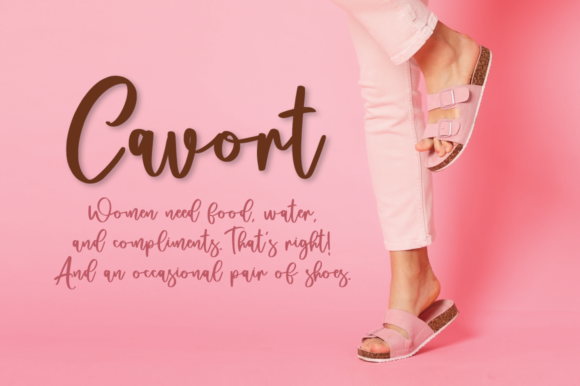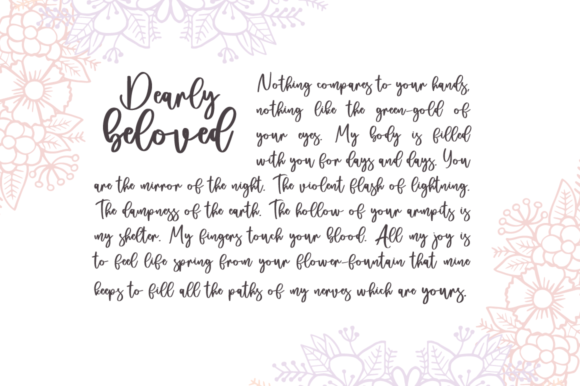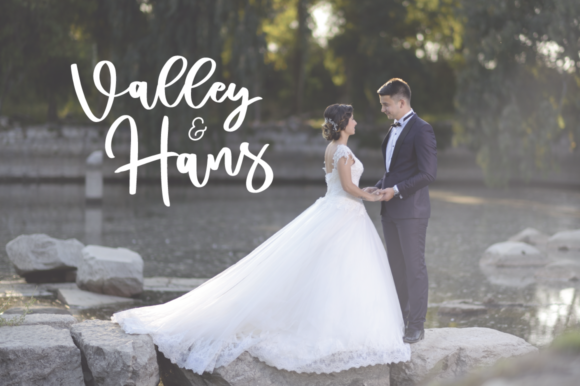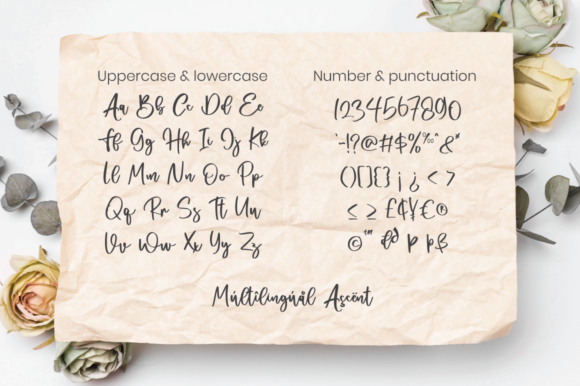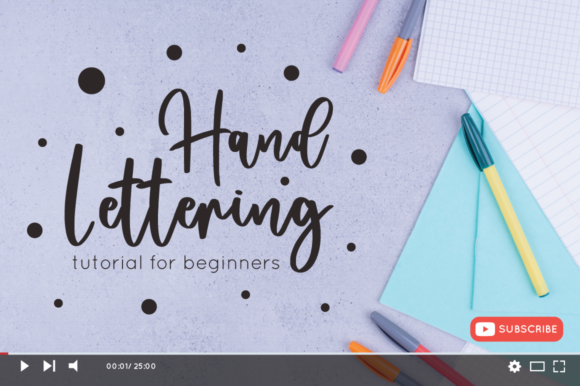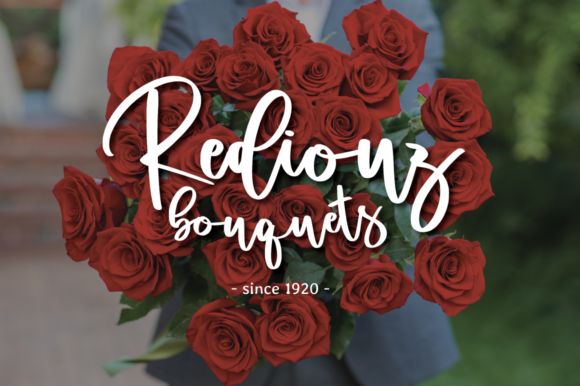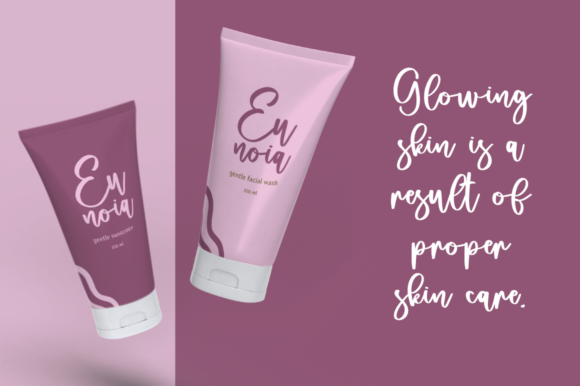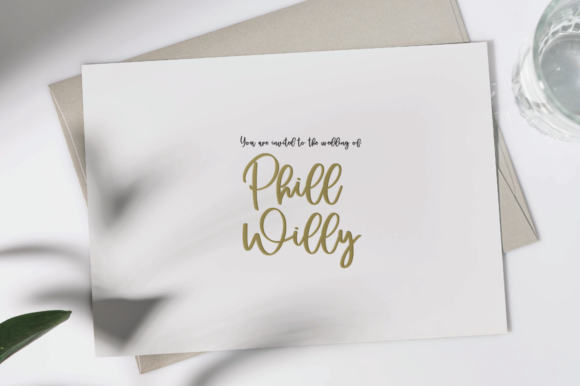
Wanders Font
About Wanders Font
Wanders is a lovely and delicate script font that brings an air of elegance and class to your designs. With its graceful and flowing letterforms, this font is perfect for creating a sophisticated and refined look.
The beauty of Wanders lies in its intricate details and subtle curves, which give it a delicate and feminine appearance. It is meticulously crafted to add a touch of elegance and refinement to your designs, making it suitable for a variety of projects.
Whether you’re designing wedding invitations, luxury branding materials, elegant stationery, or any other project that requires a beautiful and refreshing look, Wanders can elevate your designs to the next level. Its sophisticated style and graceful letterforms make it a perfect choice for creating a sense of luxury and sophistication.
Wanders is designed to be versatile and adaptable, allowing it to complement a wide range of design styles. It can be used for both formal and informal projects, adding a touch of elegance to any context. Its delicate and refreshing look makes it particularly well-suited for feminine and romantic designs.
The carefully crafted curves and swashes of Wanders add a sense of movement and flow to your typography. It allows you to create eye-catching headlines, beautiful logos, elegant branding materials, and more. The font’s refined and classy appearance will leave a lasting impression on your audience.
Furthermore, Wanders is a font that can be used in various design applications. It works well in both digital and print formats, ensuring that your designs look stunning across different mediums. Whether it’s for web design, social media graphics, packaging, or printed materials, Wanders adds a touch of sophistication to your creations.
In summary, Wanders is a lovely and delicate script font that exudes elegance and class. With its graceful letterforms and intricate details, it brings a beautiful and refreshing look to your designs. Whether you’re working on wedding invitations, luxury branding, or any other project that requires sophistication, Wanders will help you achieve a refined and elegant aesthetic. Enjoy the beauty and versatility of this font in your creative endeavors.